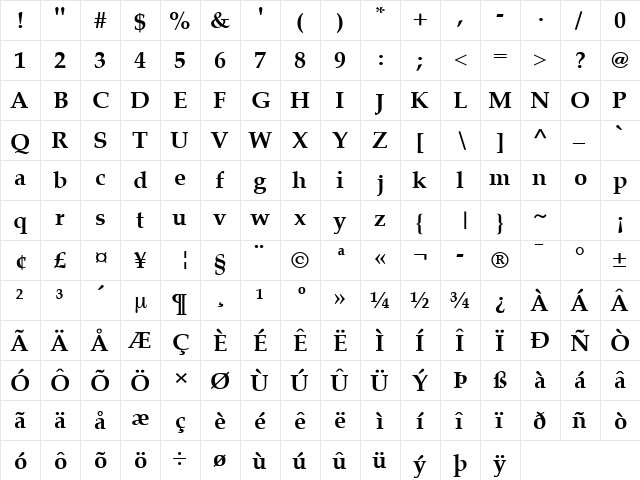
Palatino S Bold
Design Context for Palatino S Typeface
Palatino S offers clean, dependable letterforms without strong stylistic allegiance, making it a practical choice for designers who need flexibility. The heavy weight commands attention and anchors typographic hierarchies.